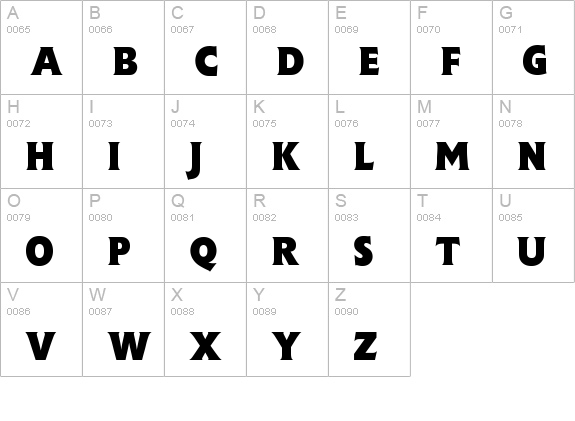
Introducing Flange R font, a modern and stylish typeface that is sure to make a statement in your designs. With its bold and edgy look, Flange R is perfect for a variety of projects, from branding to advertising to social media graphics. This versatile font features clean lines and sharp edges, giving it a sleek and contemporary feel. Whether you're creating a logo for a new business or designing a poster for an event, Flange R will help you stand out from the crowd. Best of all, Flange R is available for free download at FontsMarket.com. So why wait? Add this eye-catching font to your collection today and take your designs to the next level.